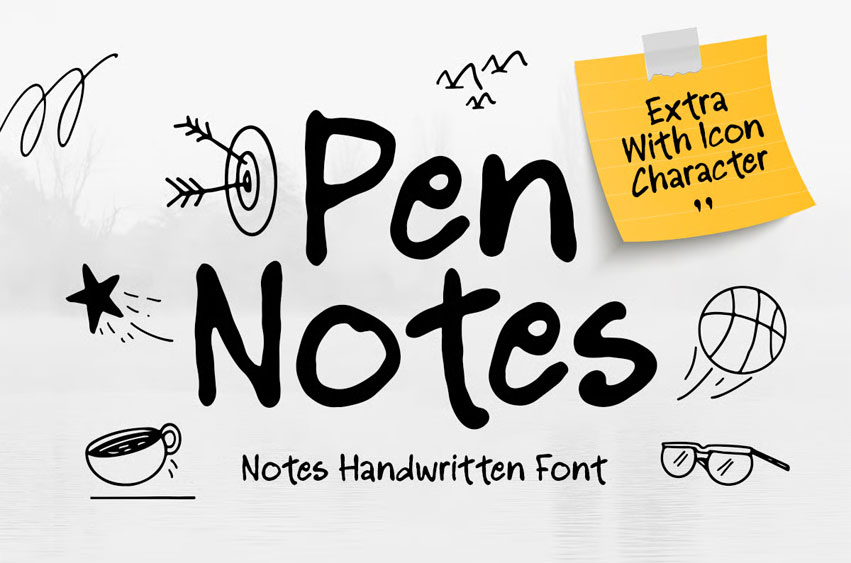
Pen Notes Font
Pen Notes Font is a notes handwritten font designed to feel natural, neat, and personal—like writing with your favorite pen. With a smooth, easygoing flow and friendly letterforms, this typeface brings a warm handwritten vibe that stays clear and readable in everyday layouts.
Perfect for journaling, planners, study notes, classroom materials, printable templates, and stationery branding, Pen Notes works beautifully on notebook covers, stickers, labels, quotes, and social media content. Its casual charm makes it ideal for cozy design aesthetics, creative shops, and lifestyle brands that want typography to feel approachable and human.
Whether you’re creating digital planners, crafting cute packaging, or designing content for notes and captions, Pen Notes adds a tidy handwritten touch that keeps your message sweet, simple, and memorable.
Pen Notes – Handwritten Notes Font Features
• Neat handwritten letterforms with a natural pen-written feel
• Perfect for notes, journals, planners, and stationery designs
• Great for stickers, labels, quotes, and printable templates
• Friendly style for classroom materials and cozy branding
• Includes uppercase, lowercase, numerals, and punctuation
• Clear readability for both digital screens and print output
• OpenType features for flexible creative layouts
Keep it cozy and personal with Pen Notes—made for handwritten notes that feel effortlessly real.